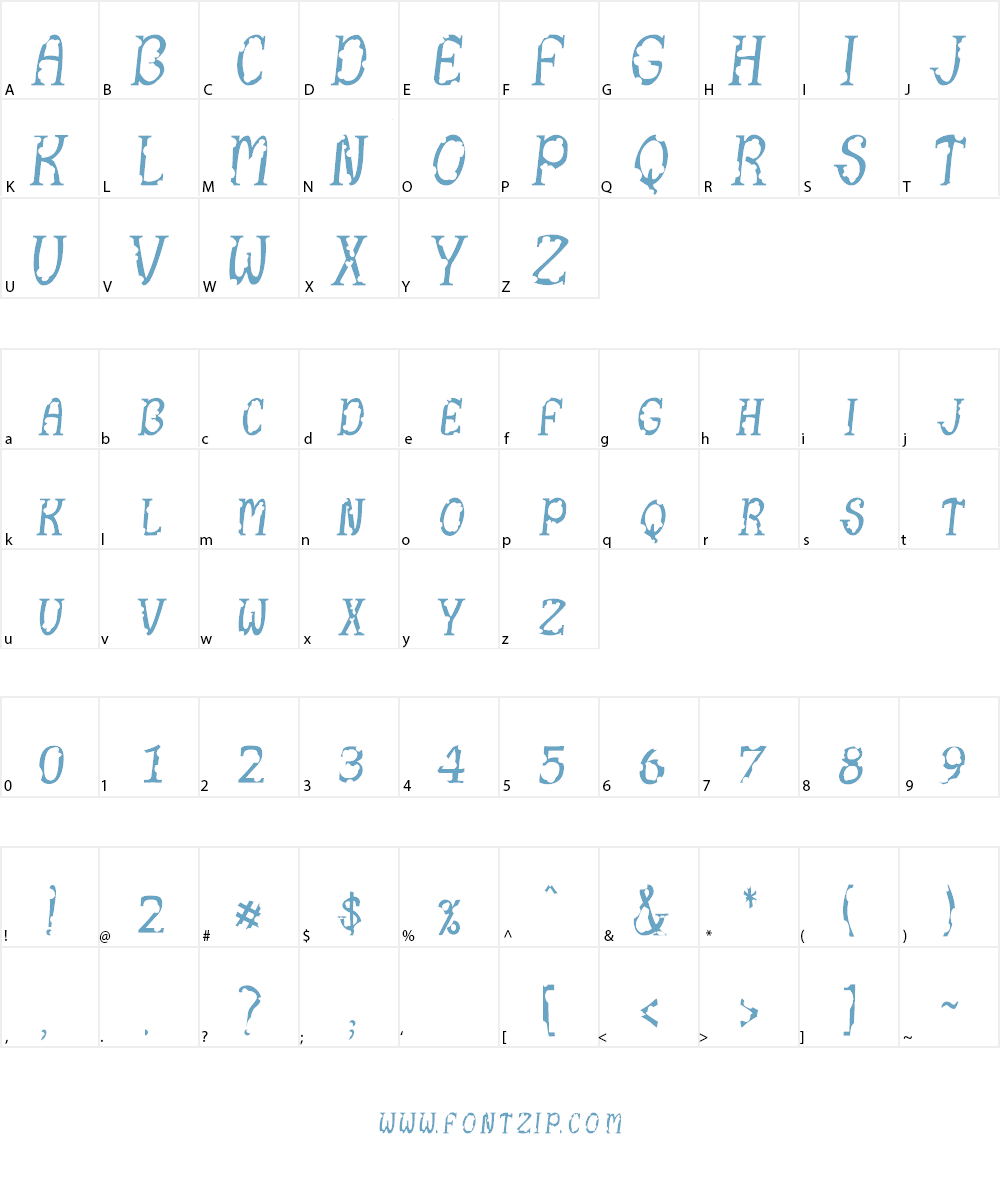
the pasta font prototypes improperly stored; so it's back to the drawing board. if you want something done right, ask someone you can blackmail. might be some usages for this design. Bleach commercials? Mouse trap packaging? Cloud computing user manuals?